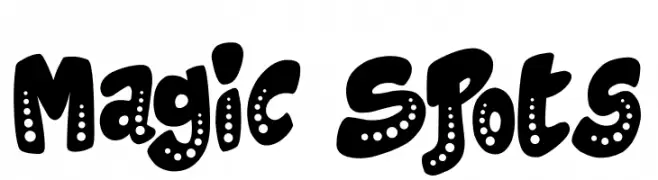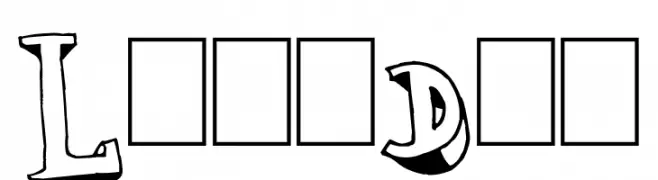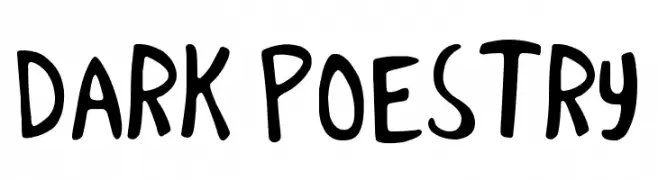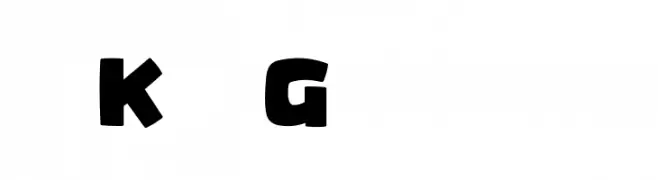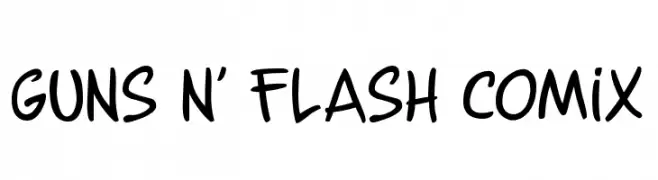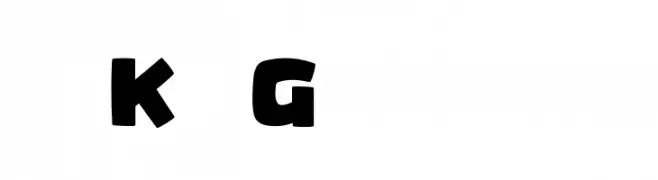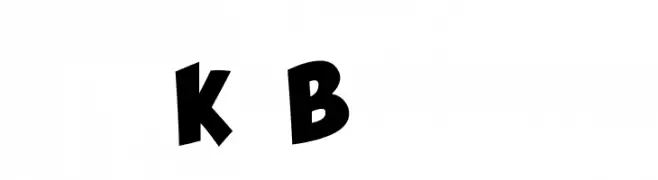
A playful, dotted font with bold, rounded characters ideal for fun designs.
A bold, vintage-style font with decorative strokes and a hand-drawn appearance.
A bold, comic-style font with playful star and burst embellishments.
A playful, bold font with irregular shapes and a hand-drawn style.
A bold, geometric font with sharp angles and modern cutouts.
A bold, playful handwritten font with a whimsical and artistic style.
A playful, bold typeface with chunky, rounded characters and a whimsical style.
A playful, handwritten font with bold, dynamic strokes and a casual style.
A playful, bold font with thick, rounded characters and a hand-drawn feel.
A bold, playful font with a comic book style and dynamic letterforms.